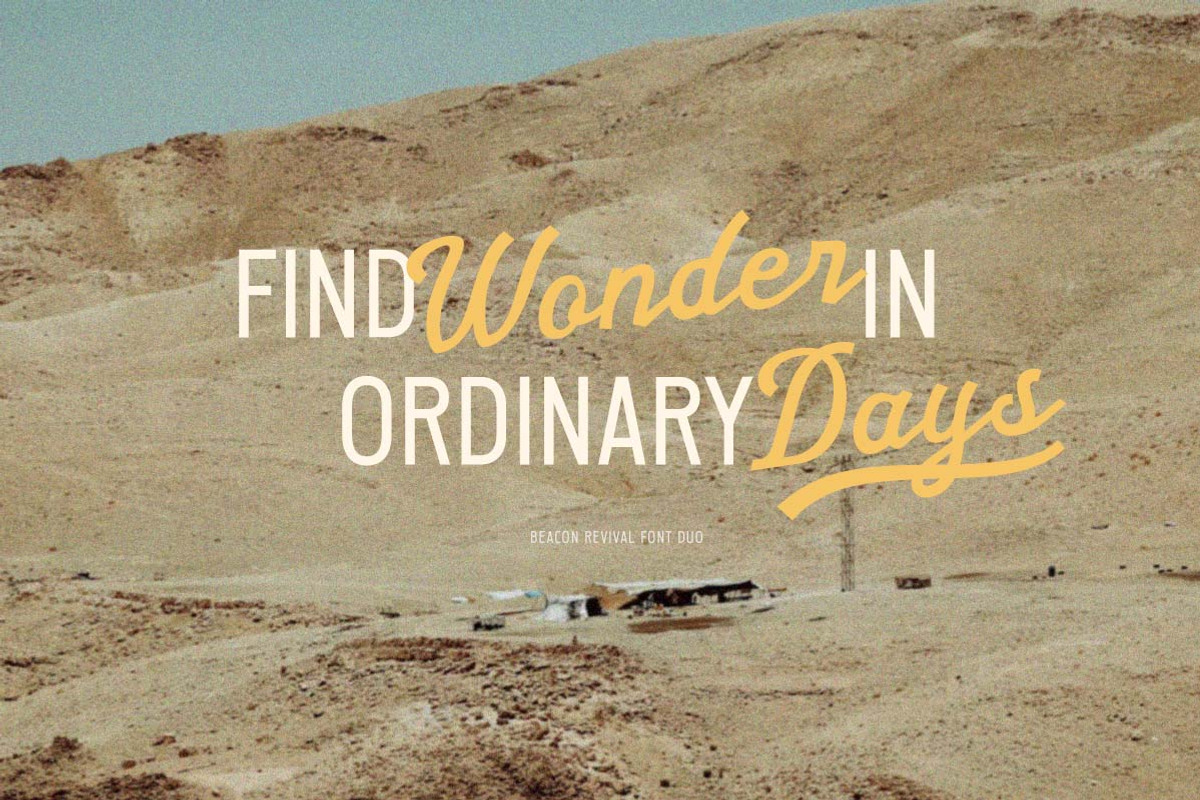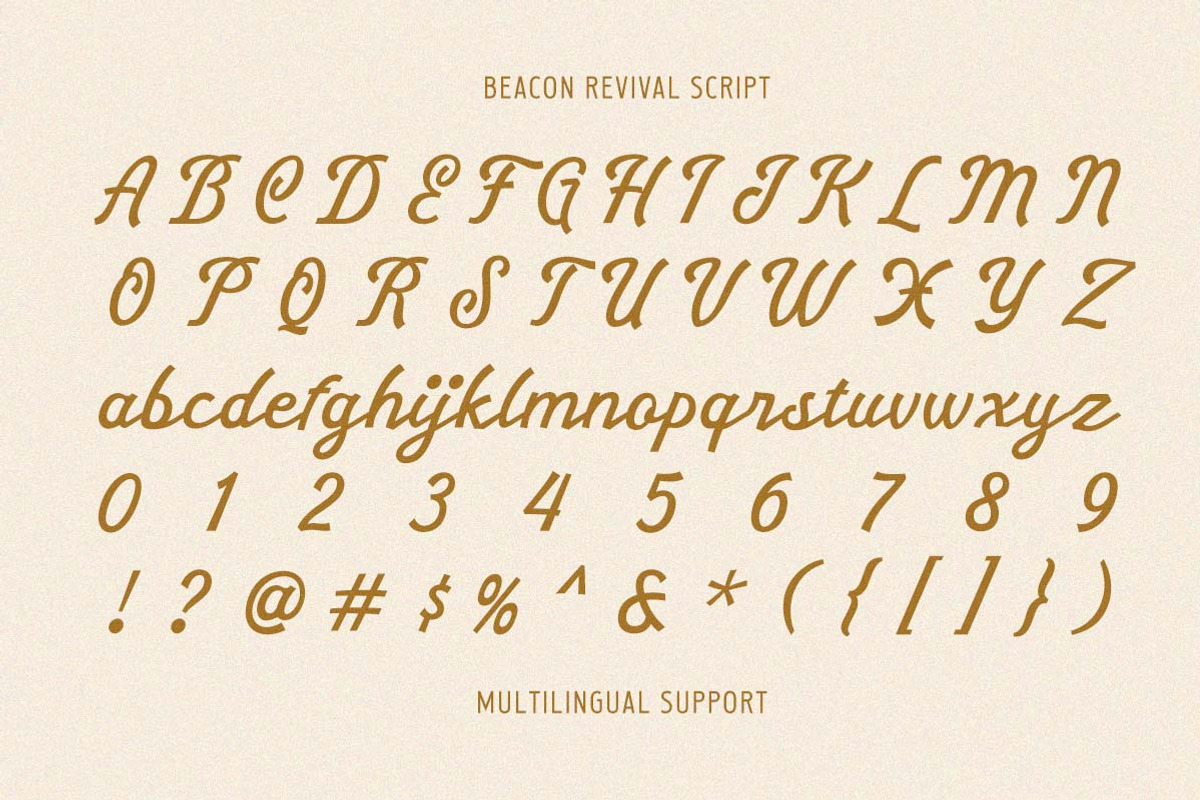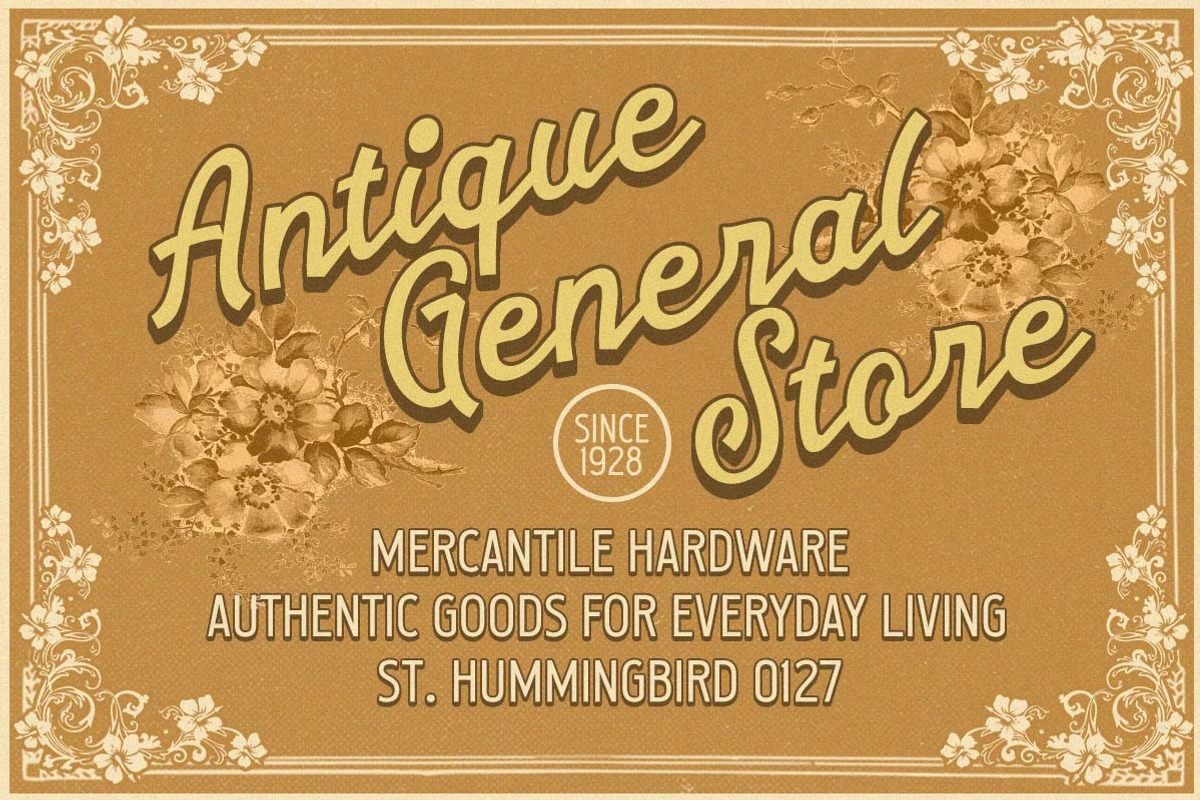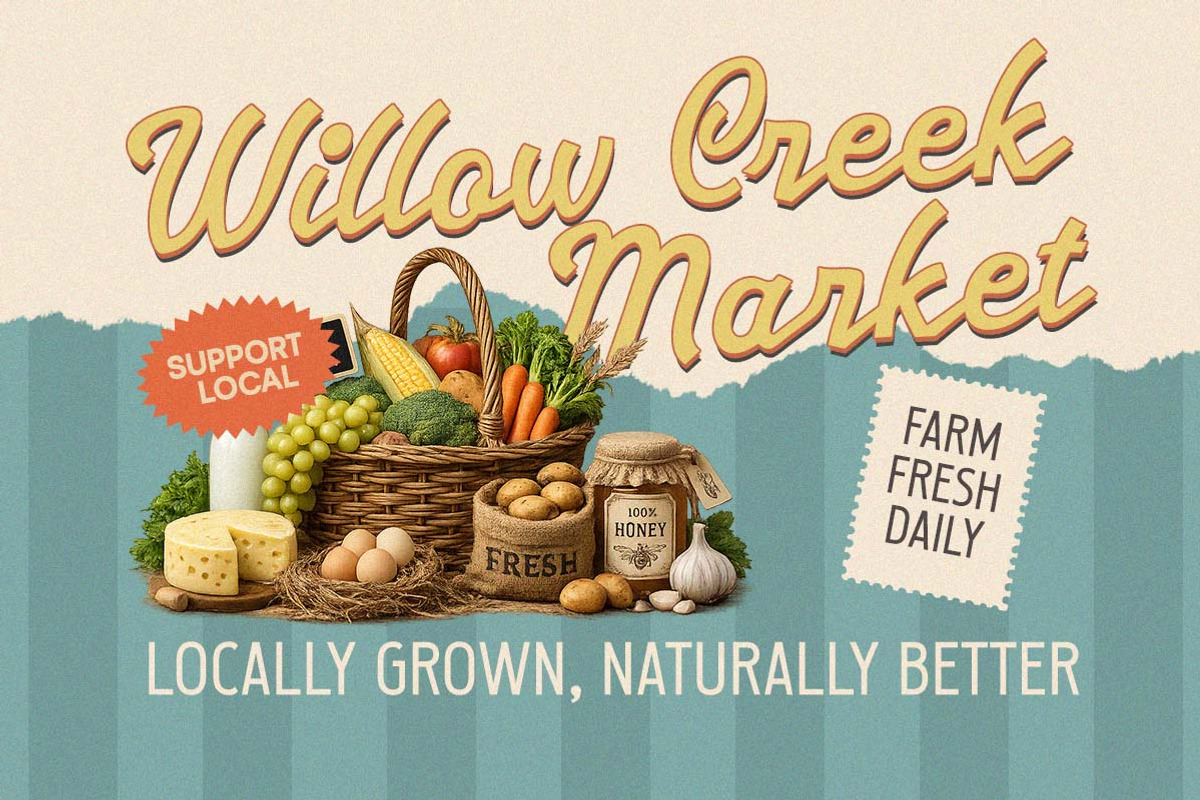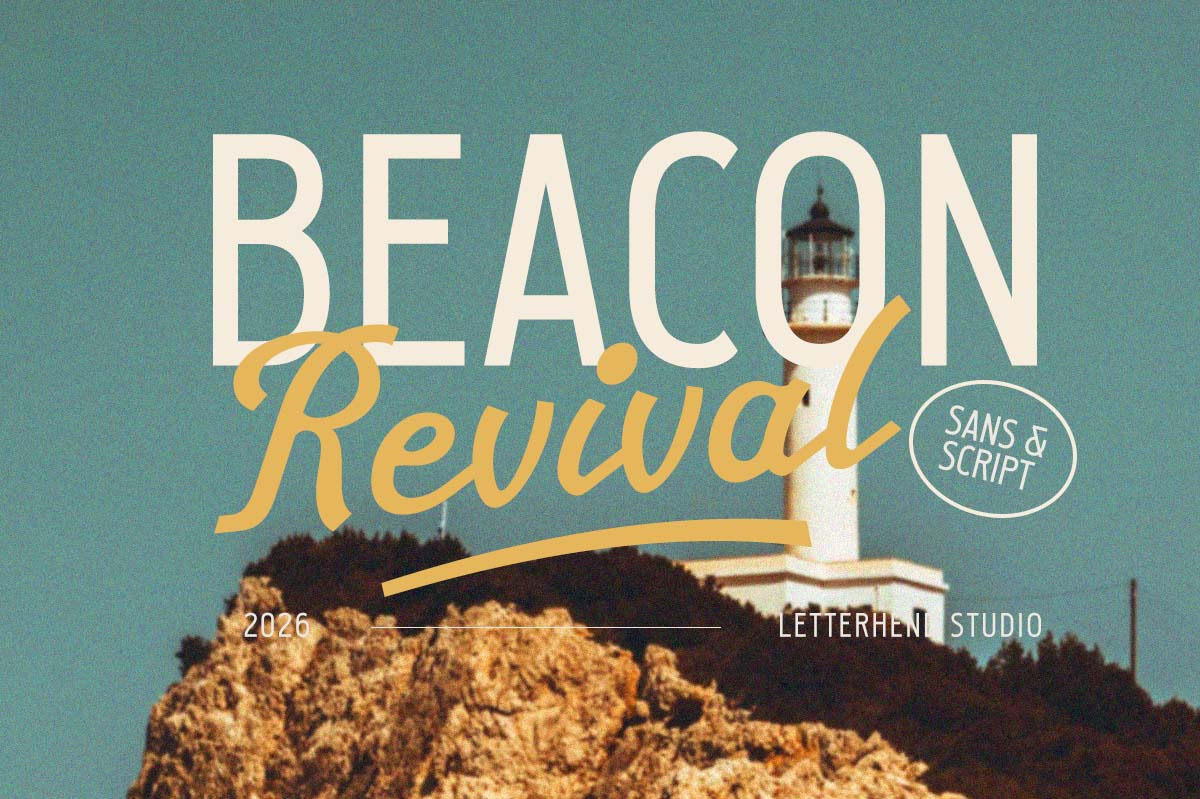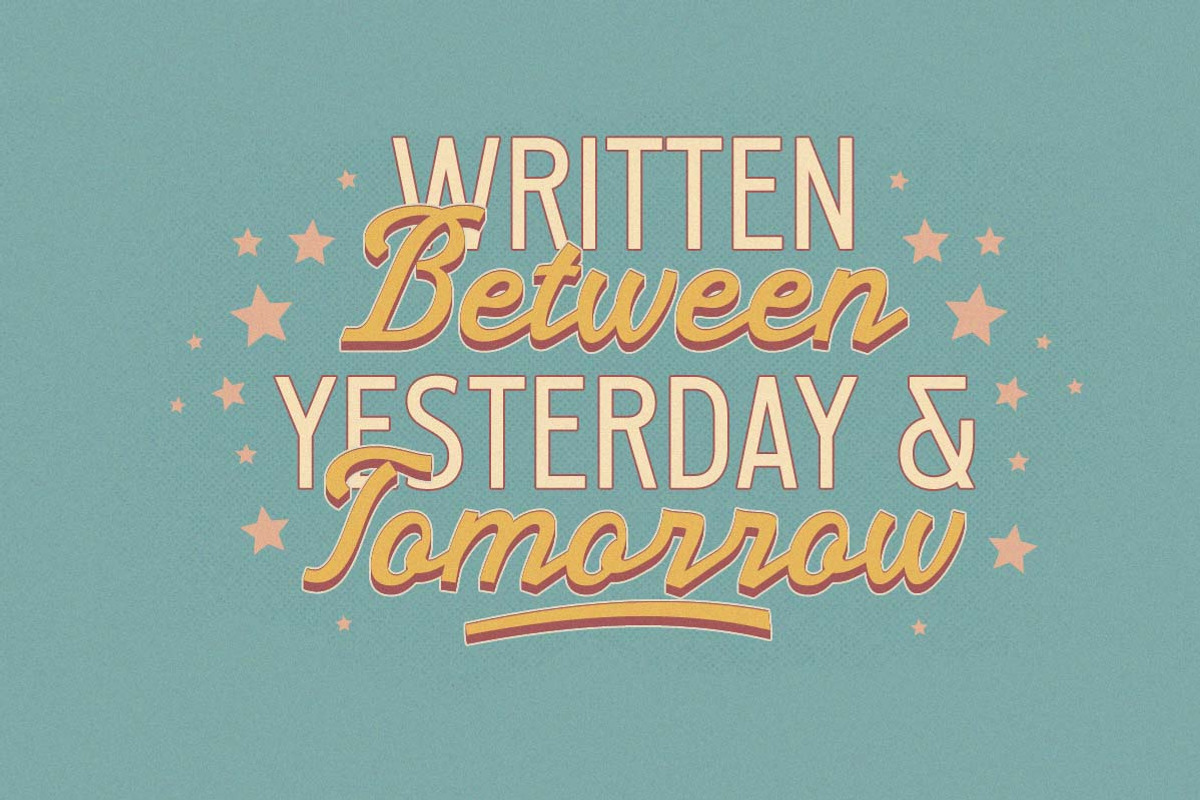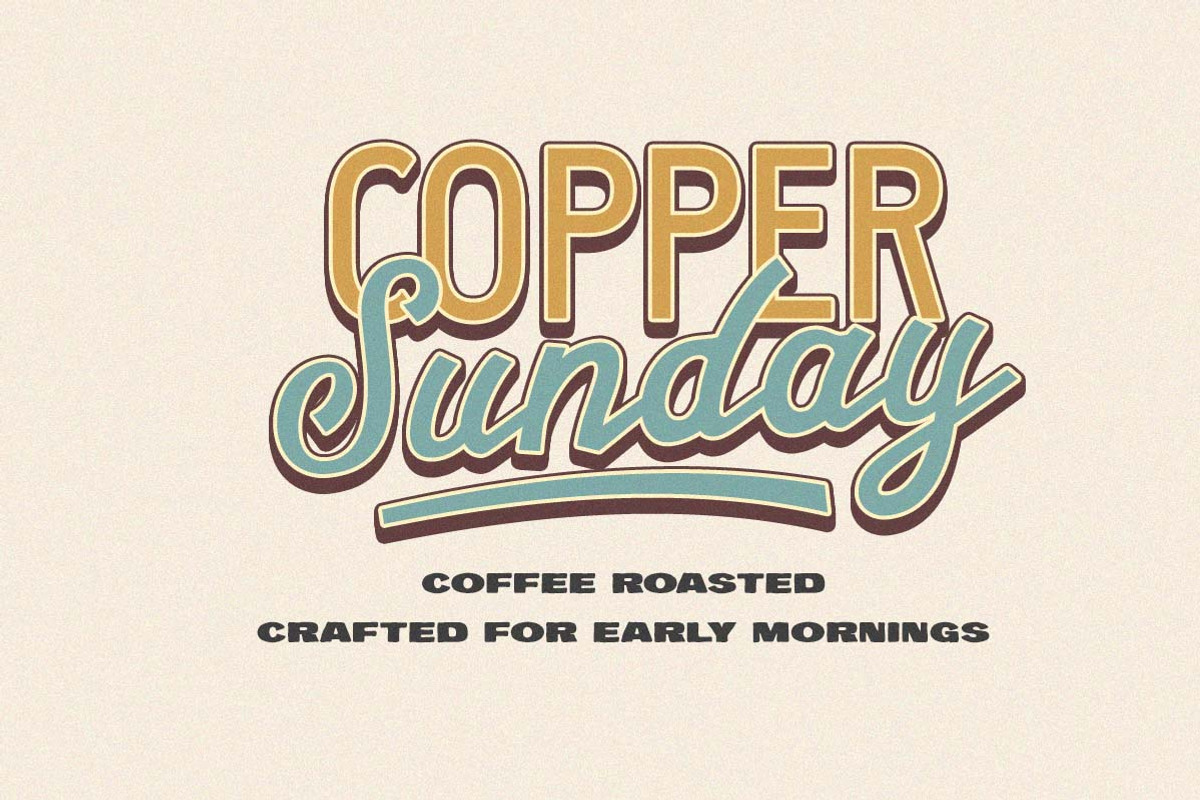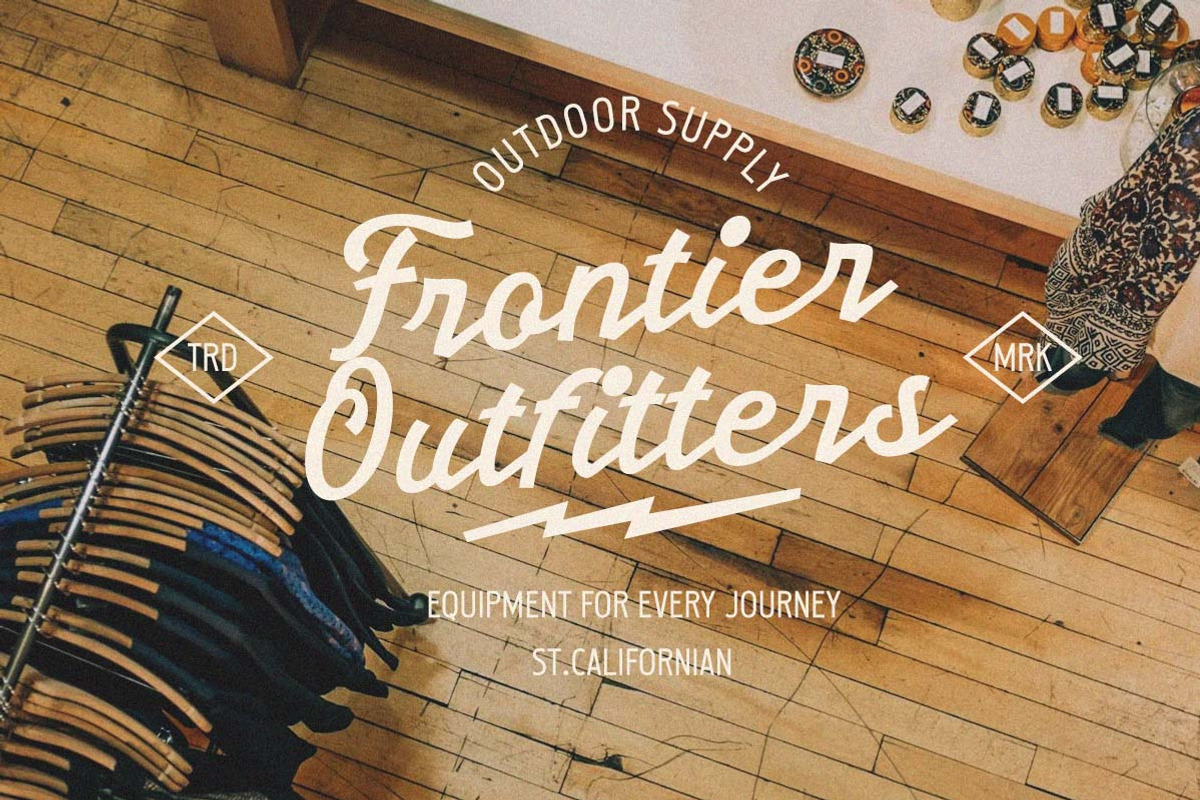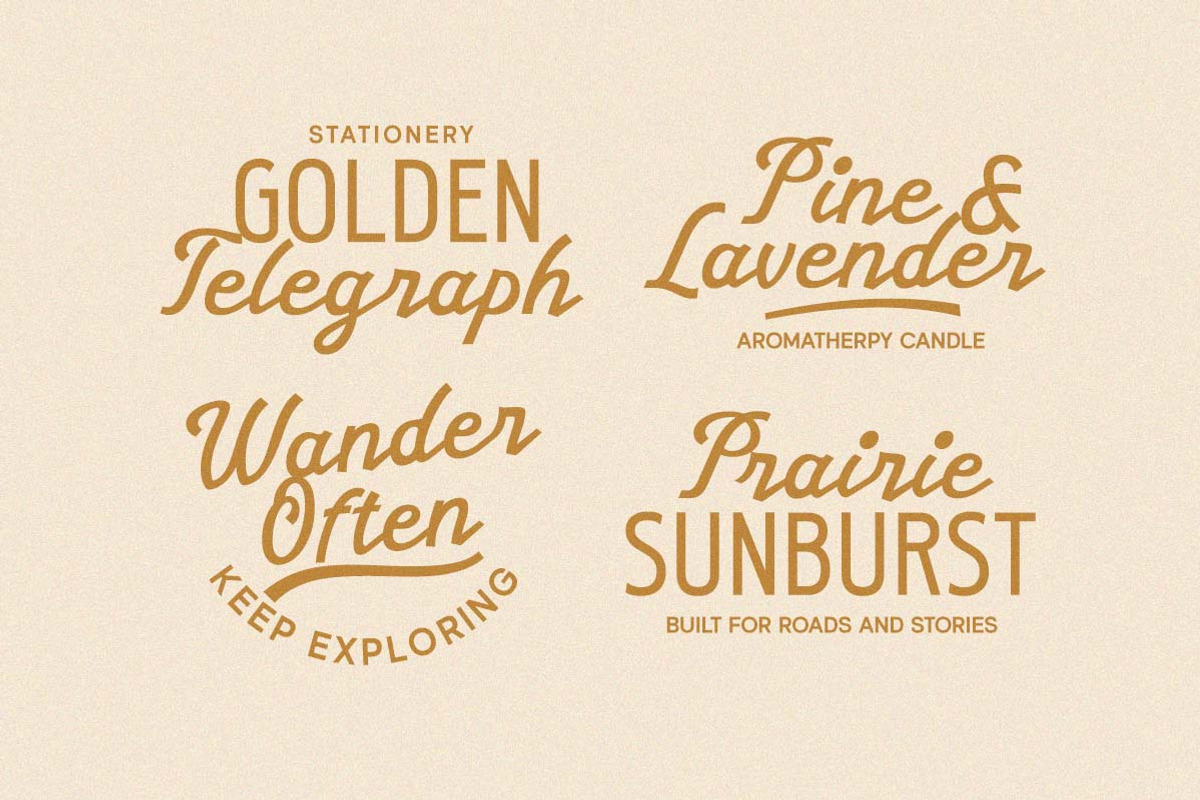
Beacon Revival Vintage Font Duo
Beacon Revival is a retro-inspired font duo featuring a clean condensed sans and a smooth vintage script. Designed with classic signage, travel posters, and nostalgic branding in mind, it delivers a timeless look that feels warm, authentic, and effortlessly stylish.
Uppercase & lowercase
Numbers and punctuation
Alternates & Ligatures